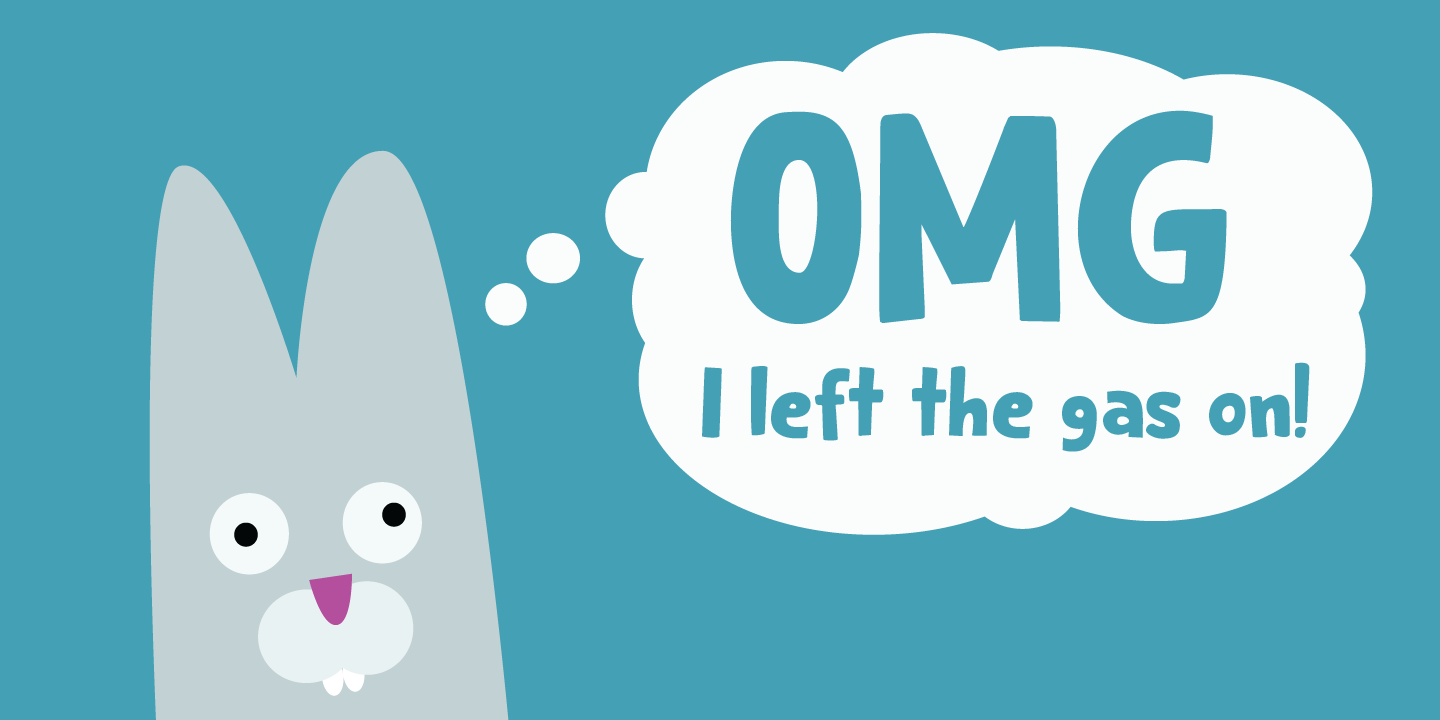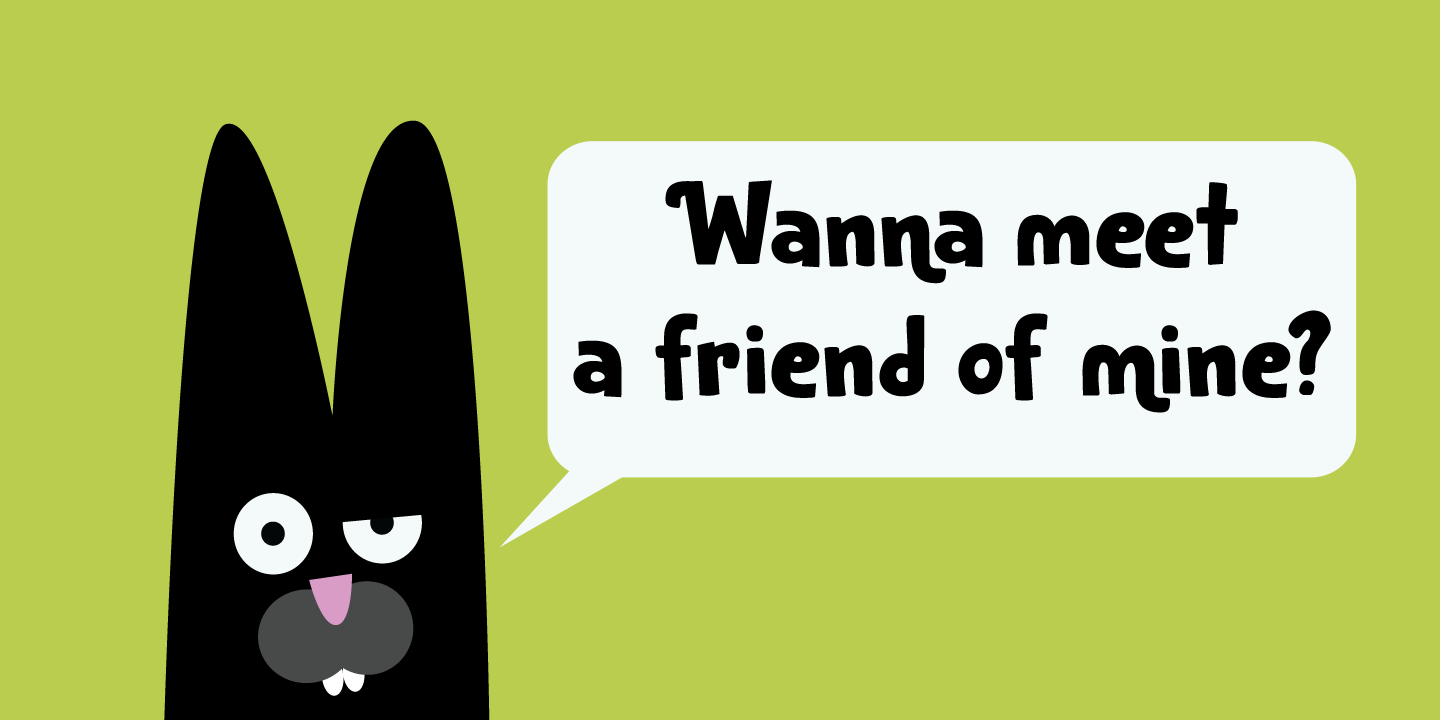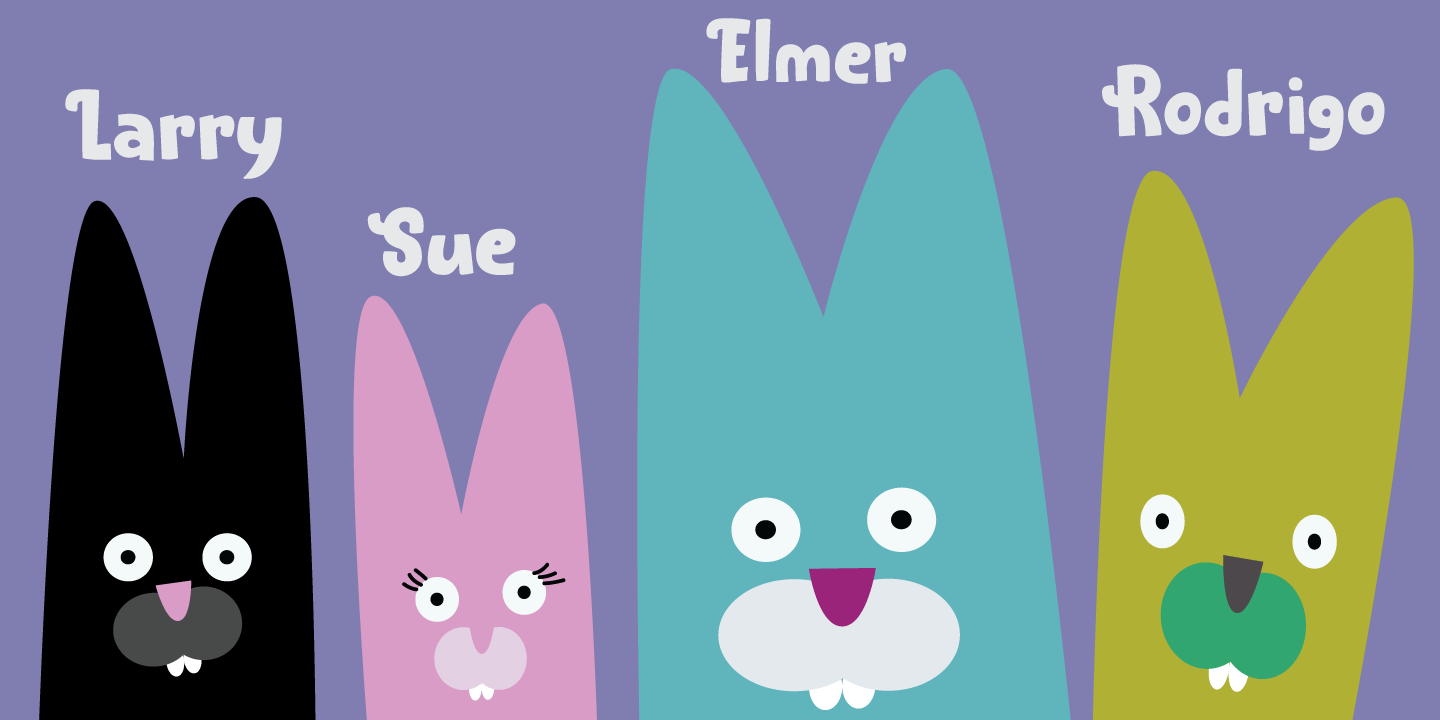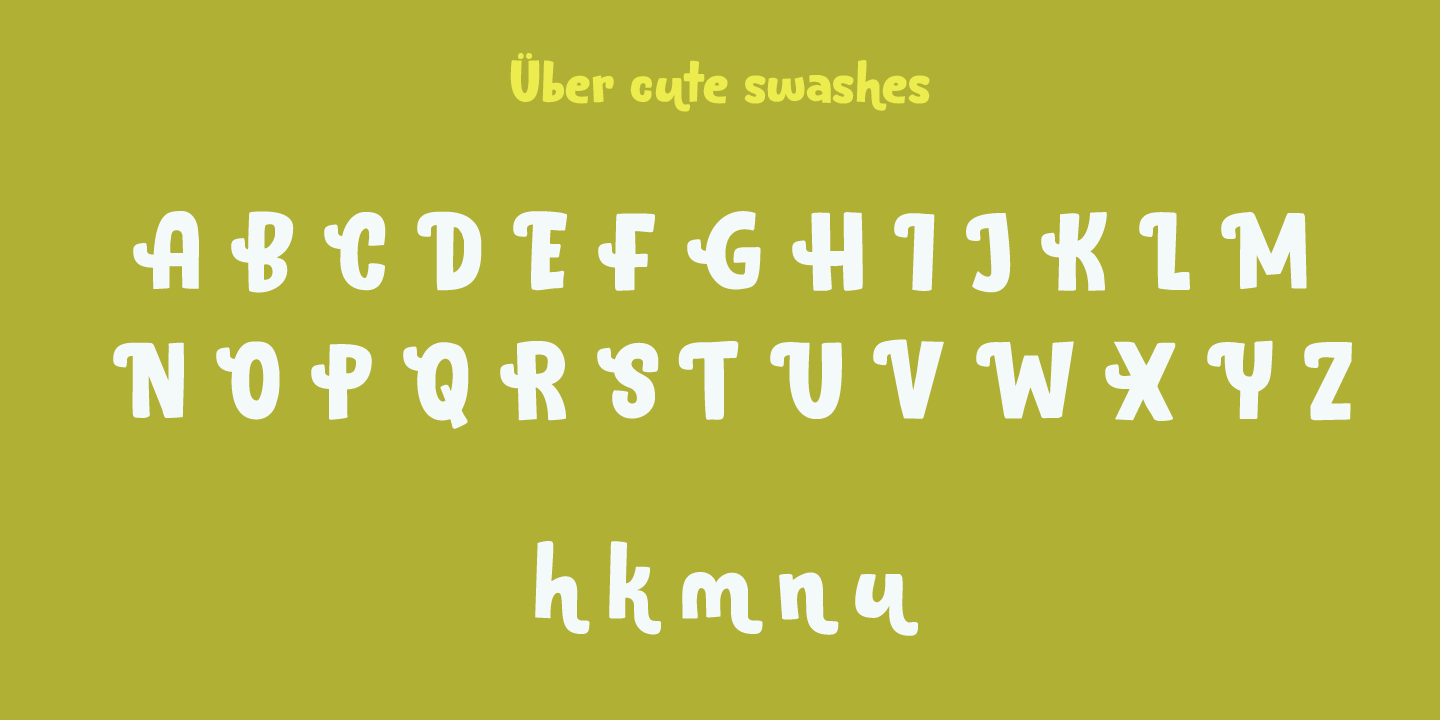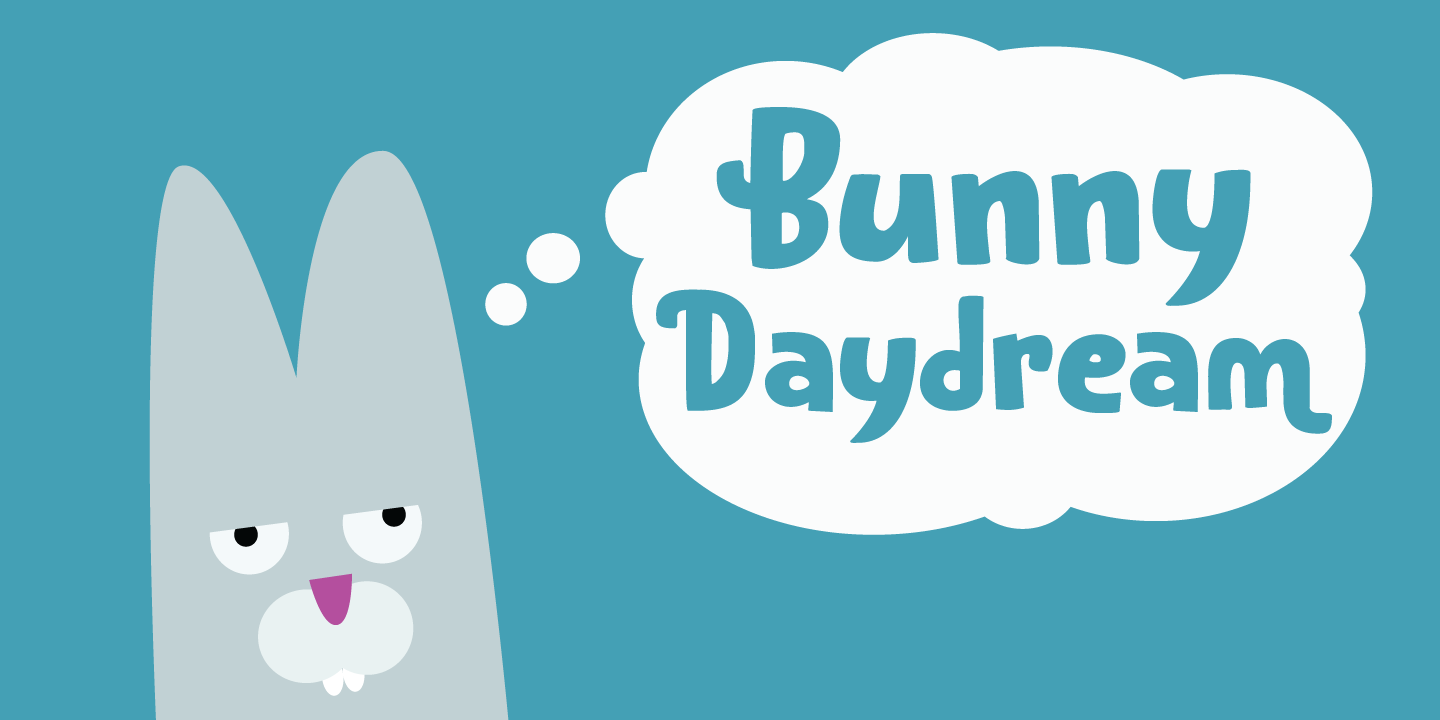
Bunny Daydream
About Bunny Daydream
My niece has two bunny rabbits: Skye and Pippi. She really loves them, so I named this font after her pets. Bunny Daydream is a rounded, handmade kids? font. It comes with cute swashes and all the diacritics you need.